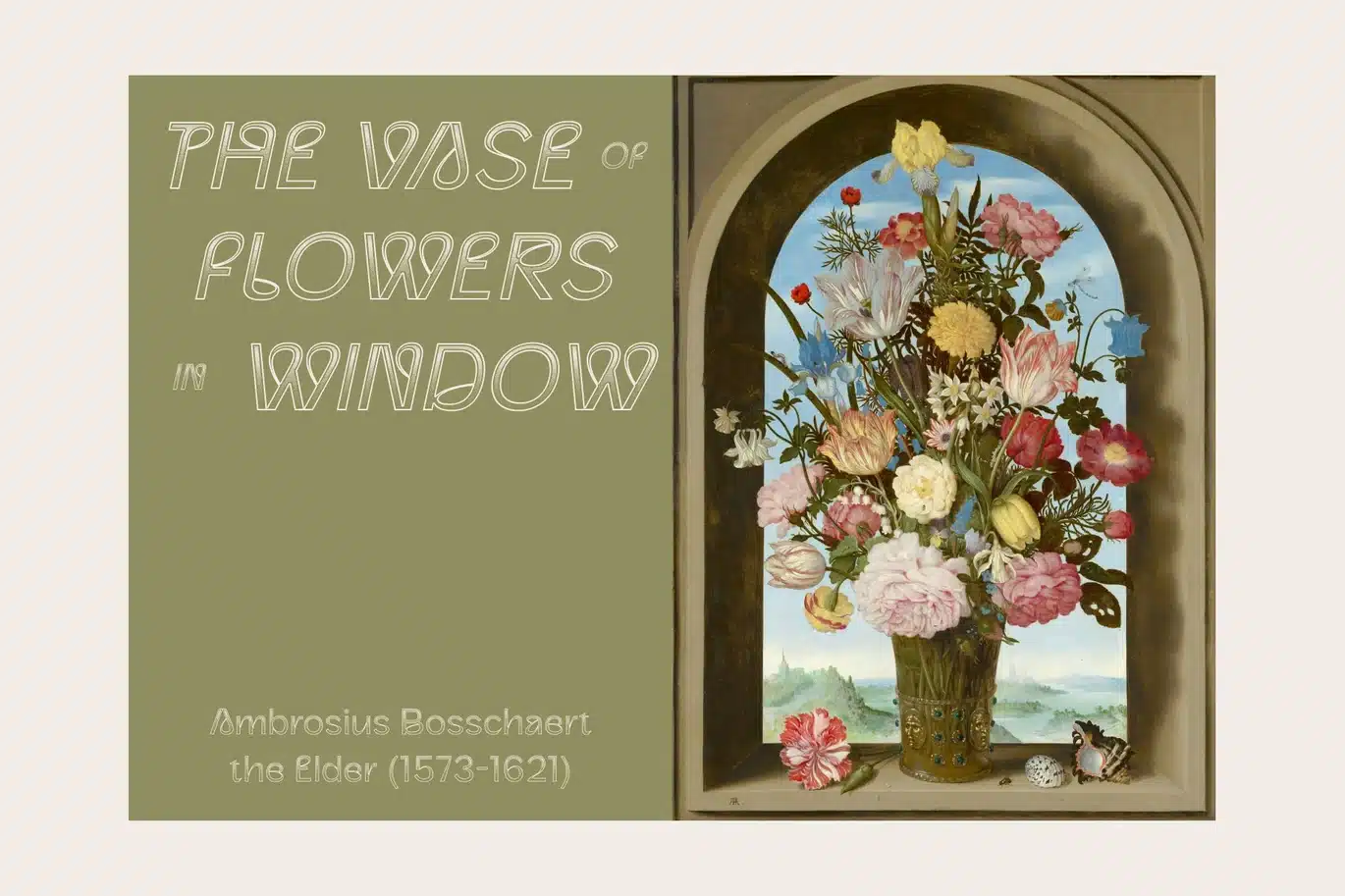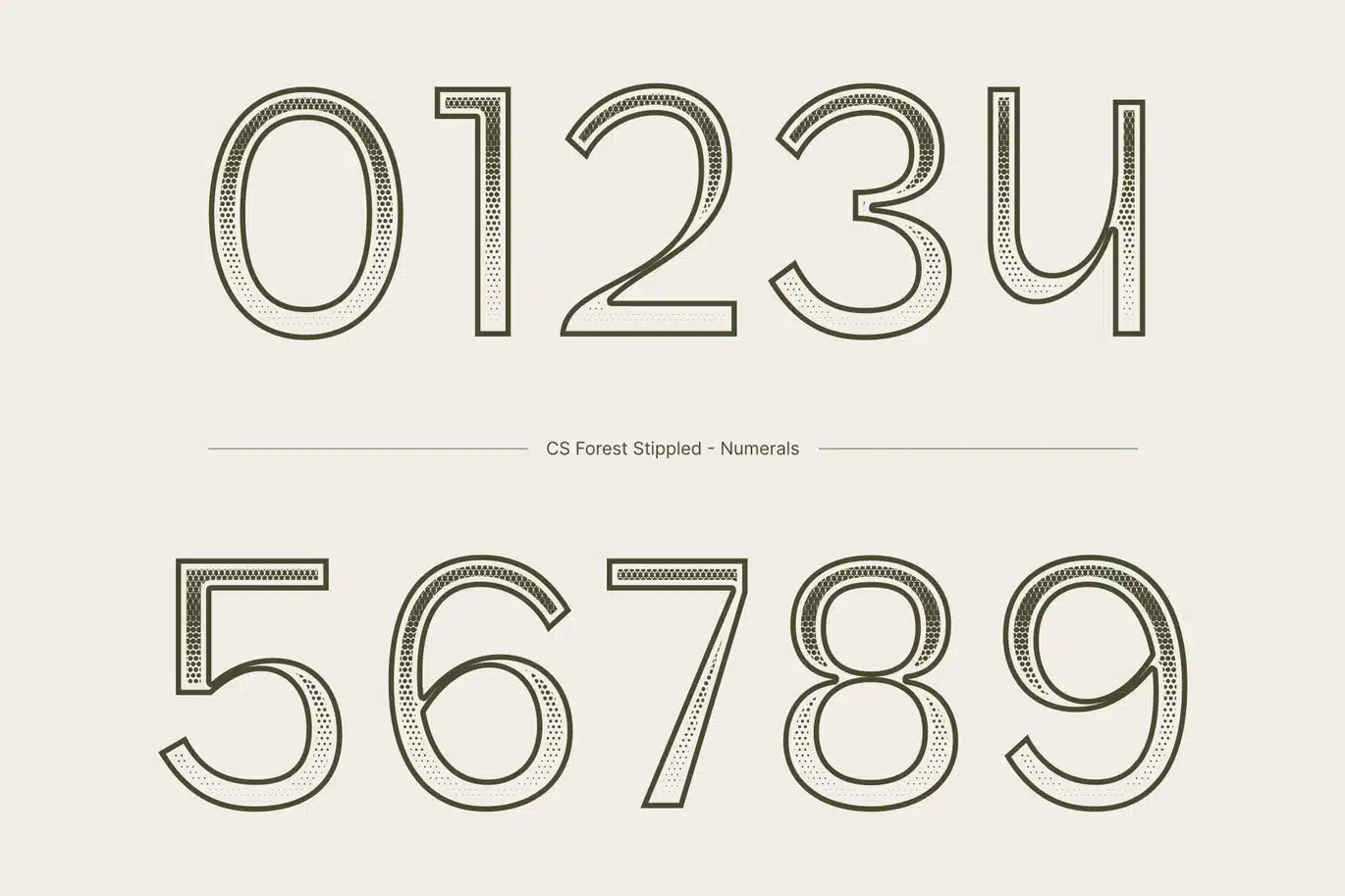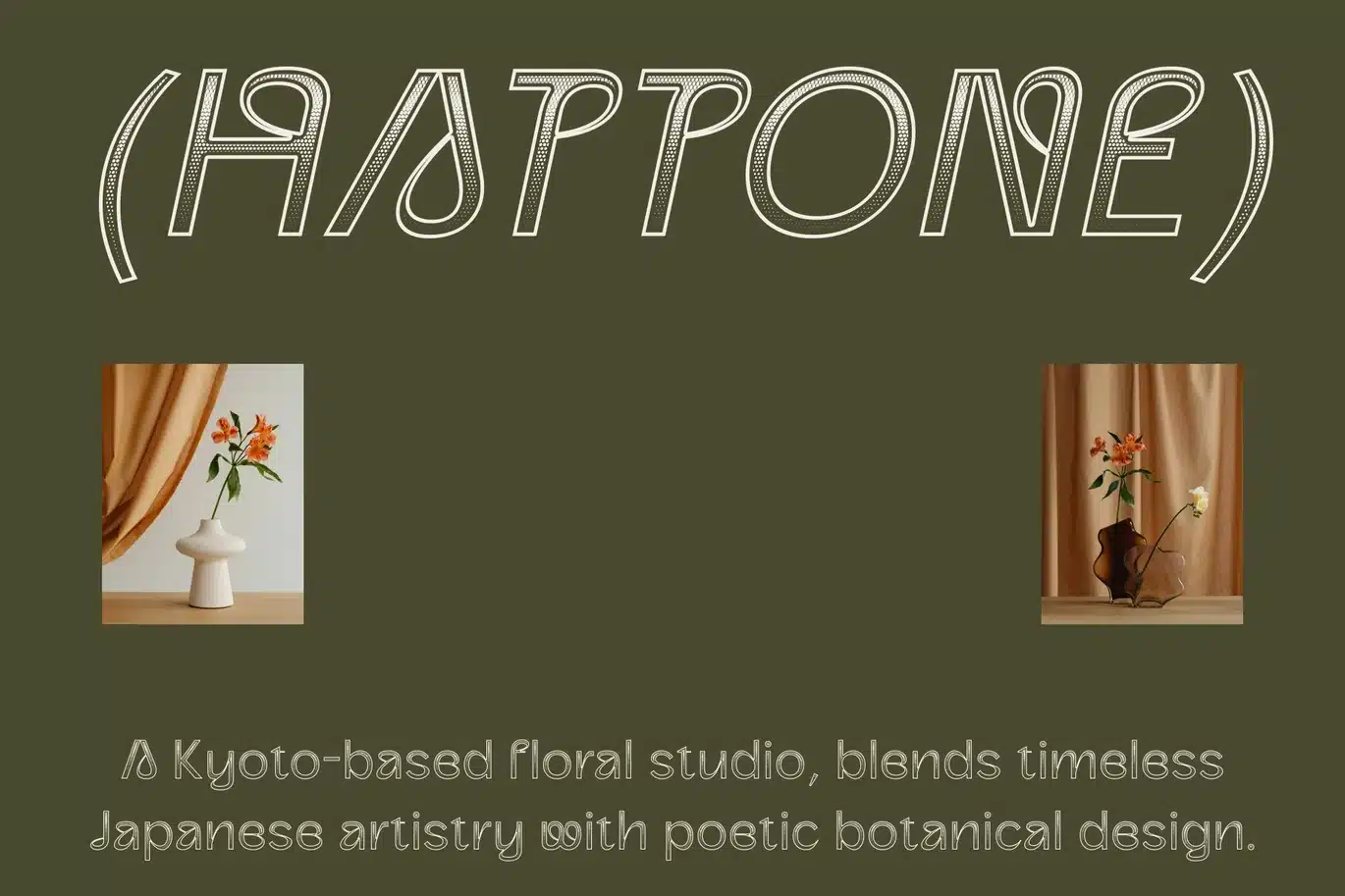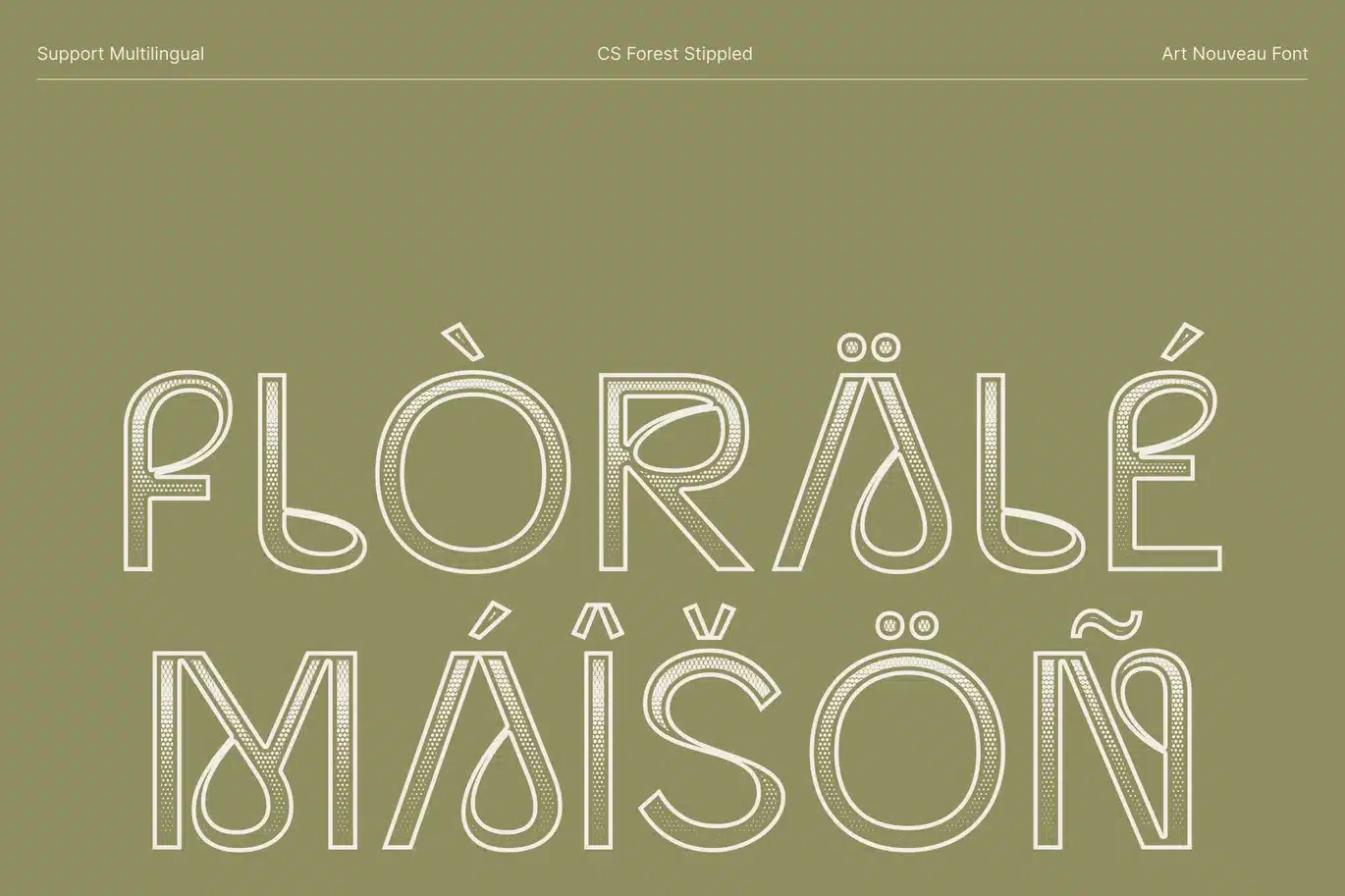
Forest Stippled Font
CS Forest Stippled – Art Nouveau Sans-Serif Font with Textured Elegance
Art Nouveau Sans-Serif with Stippled Texture
This is a graceful sans-serif font inspired by the flowing elegance of the Art Nouveau movement. Its delicate curves and organic lines reflect the natural beauty and artistic sophistication associated with this iconic design style. Enhanced with a stippled texture, the letterforms gain a subtle dotted surface that adds depth and a handcrafted character, enriching the overall artistic expression.
Flowing Forms with Artistic Charm
The design of this font emphasizes smooth curves and fluid transitions, creating a soft and harmonious visual rhythm. These elegant shapes evoke the decorative artistry of classic Art Nouveau typography, while the stippled detailing introduces gentle texture that enhances the refined character of the font.
Elegant Style for Sophisticated Designs
This font brings a sense of grace and sophistication to any project. Its combination of organic forms and textured surfaces creates a distinctive typographic presence that feels both timeless and artistic.
Perfect for Refined Creative Applications
This font is ideal for branding, invitations, editorial layouts, packaging, and decorative typography. Whether used for logos, wedding stationery, or elegant magazine designs, adds a captivating and sophisticated atmosphere to visual compositions.